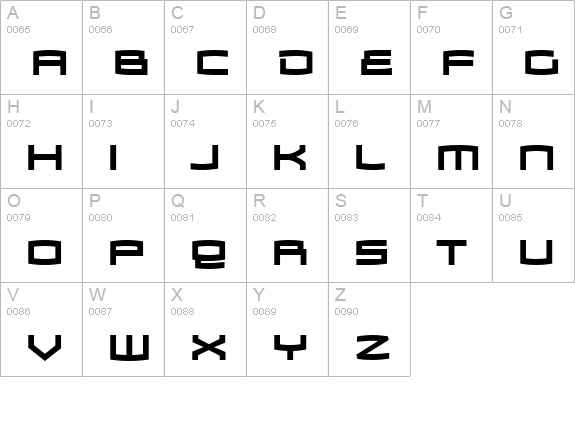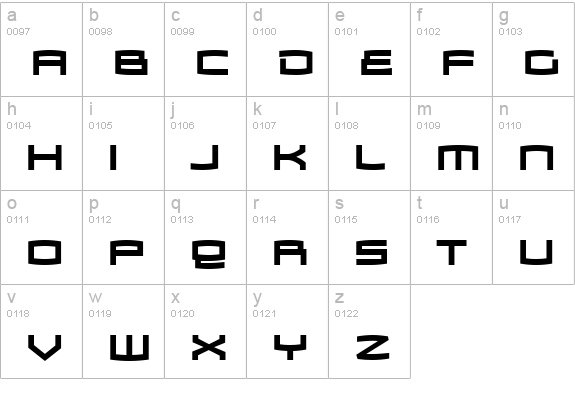
Zosma Bold is a strong, high-contrast variant in the Zosma typeface family \xE2\x80\x94 well suited to headlines, attention-grabbing titles, and strong calls-to-action.
Zosma Bold font is a striking and modern typeface that exudes confidence and sophistication. With its bold and strong letterforms, Zosma Bold commands attention and makes a statement in any design project. This versatile font is perfect for headlines, logos, posters, and any other project that requires a bold and impactful look. The clean lines and sharp edges of Zosma Bold give it a contemporary and polished appearance, while still maintaining a sense of elegance and style. Whether used for print or digital media, this font is sure to make a lasting impression on viewers. What's even better is that Zosma Bold is available for free download at FontsMarket.com. So you can add this stunning font to your collection without any cost. Don't miss out on the opportunity to enhance your designs with the bold and captivating Zosma Bold font today!